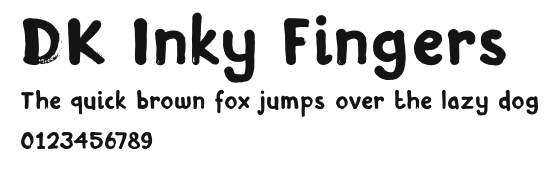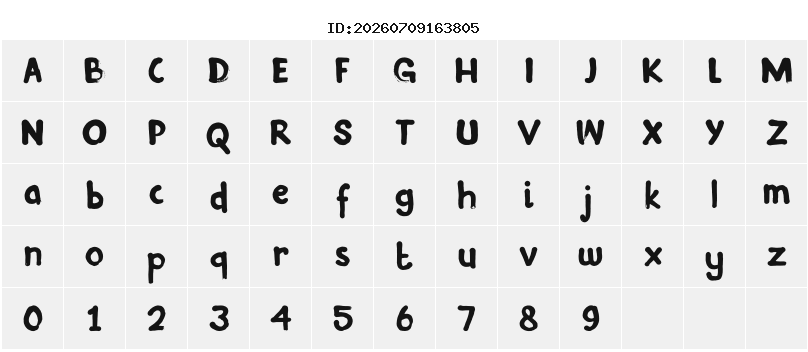
DK Inky Fingers Preview
• Font Name: DK Inky Fingers
• Font ID: DavidKerkhoff: DK Inky Fingers: 2013
• Full Font Name: DKInkyFingers
• PostScript Name: DKInkyFingers
• Character Count: 146
• Designer: David Kerkhoff
• Manufacturer: David Kerkhoff
About DK Inky Fingers.otf
DK Inky Fingers.otf is a modern, elegant sans-serif font designed for ultimate readability and visual harmony. Perfect for branding, headlines, web design, and print materials.